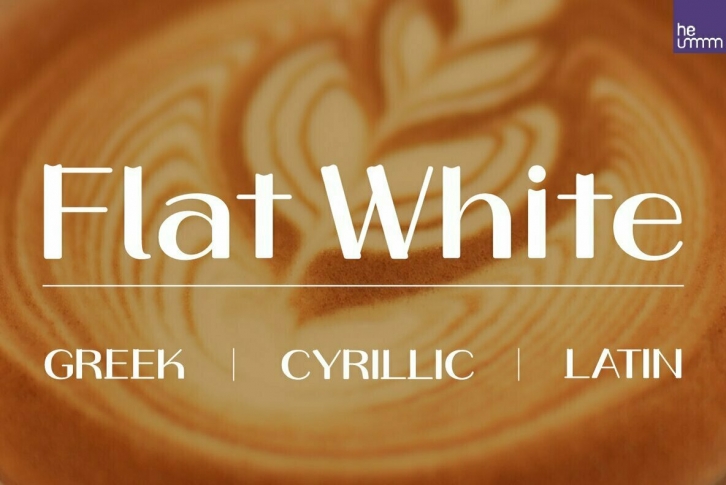
HU Flat White is a retro vibe headline typeface. It has a full module, but, the inner space created by large strokes' contrast gives a cool feeling. Overall, the extended typeface with a wide width is attractive, and the features of the first bump of the neutrality and the dot shape create a retro feel.